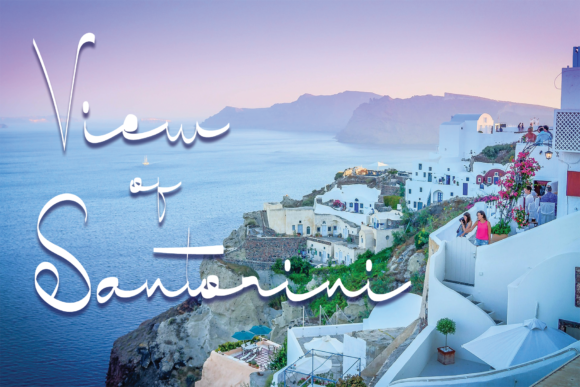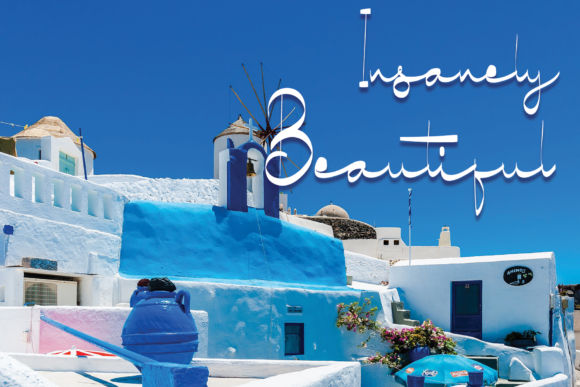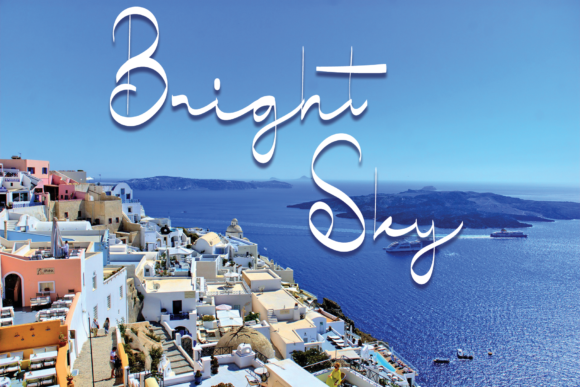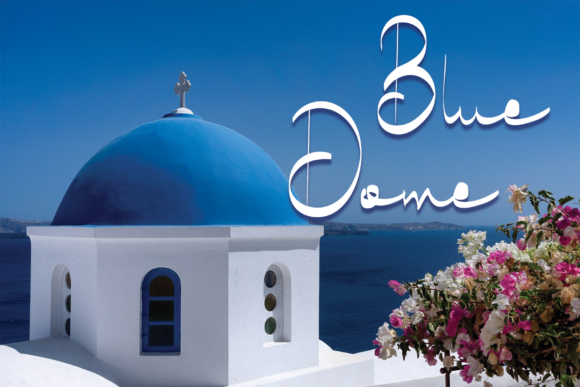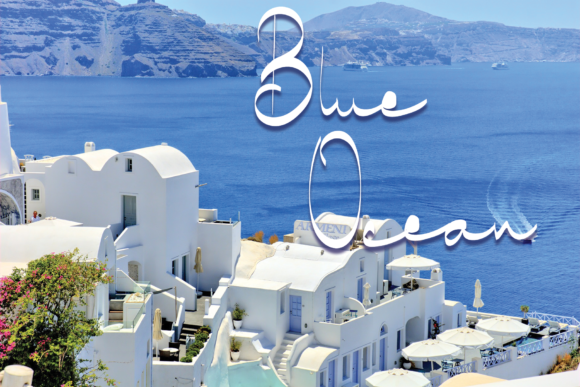
View of Santorini Font
About View of Santorini Font
View Of Santorini is unique script font with characters that dance along the baseline. Dainty and joyful, this font will be ideal for writing wedding invitations, cards or any other design that may need a personalized touch!